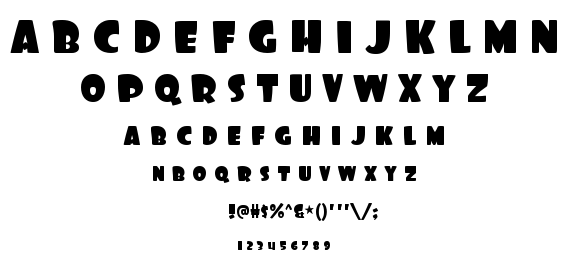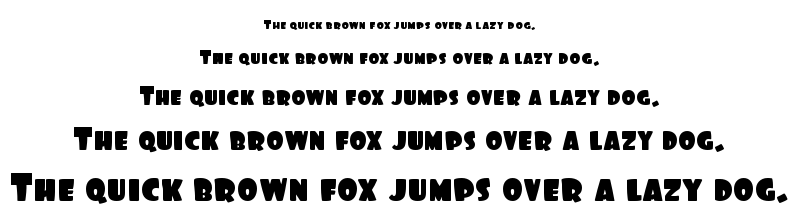
Foo
Foo Font
Foo is a fat headliner inspired by an early 20th Century lettering guide. Don’t forget to read the files inside the zip for details. Updated in 2012.